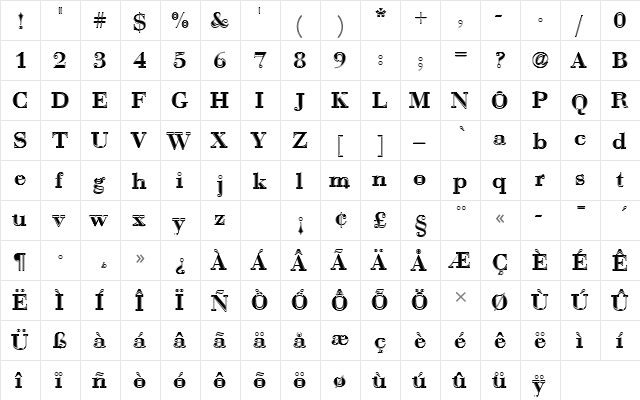
BauerBodDDemBolIn1 Regular
BauerBodDDemBolIn1 is a composed and adaptable typeface that performs quietly and consistently across a wide range of design contexts.